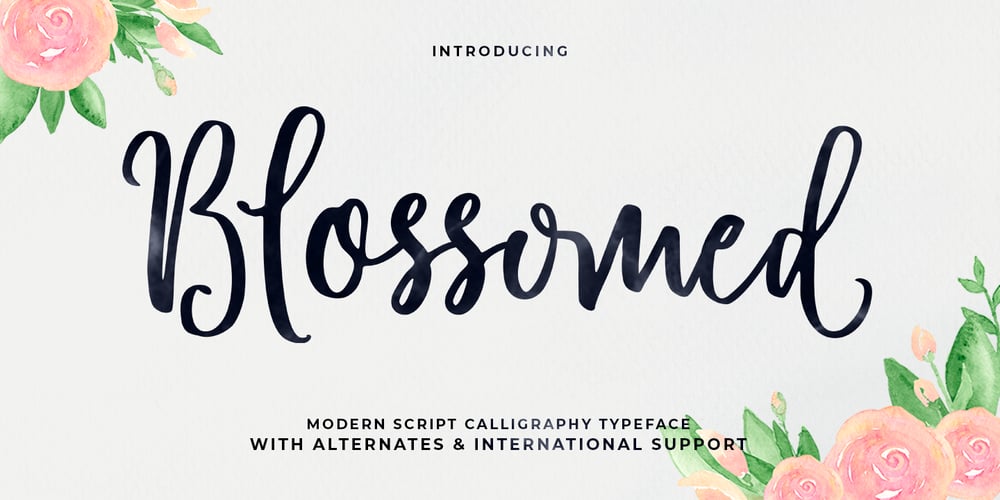
Blossomed Script Font Family was designed by Mur Zani and published by Zane Studio. Blossomed Script contains 1 styles and family package options. Blossomed Script is a new, modern script font with an irregular base line. Since it is trendy and feminine, Blossomed Script looks beautiful in wedding invitations, thank you cards, quotes, greeting cards, logos, business cards, and more. Perfect for use in ink or watercolors. Including beginning and end letters, alternatives and support for many languages.To activate the OpenType Stylistic alternative, you need a program that supports OpenType features such as Adobe Illustrator CS, Adobe Indesign & CorelDraw X6-X7, Microsoft Word 2010 or newer versions. There are additional ways to access alternatives / swashes, using Character Maps (Windows), Nexus Fonts (Windows), Font Books (Mac) or software programs such as PopChar (for Windows and Mac).